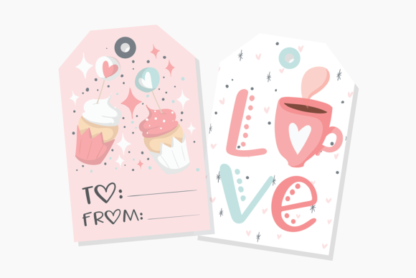
Love Letters Handwritten Font
Love Letters Cute Handwritten Font
Love Letters is a cute display font. It is sweet and friendly and it is the ideal choice for creating romantic designs.